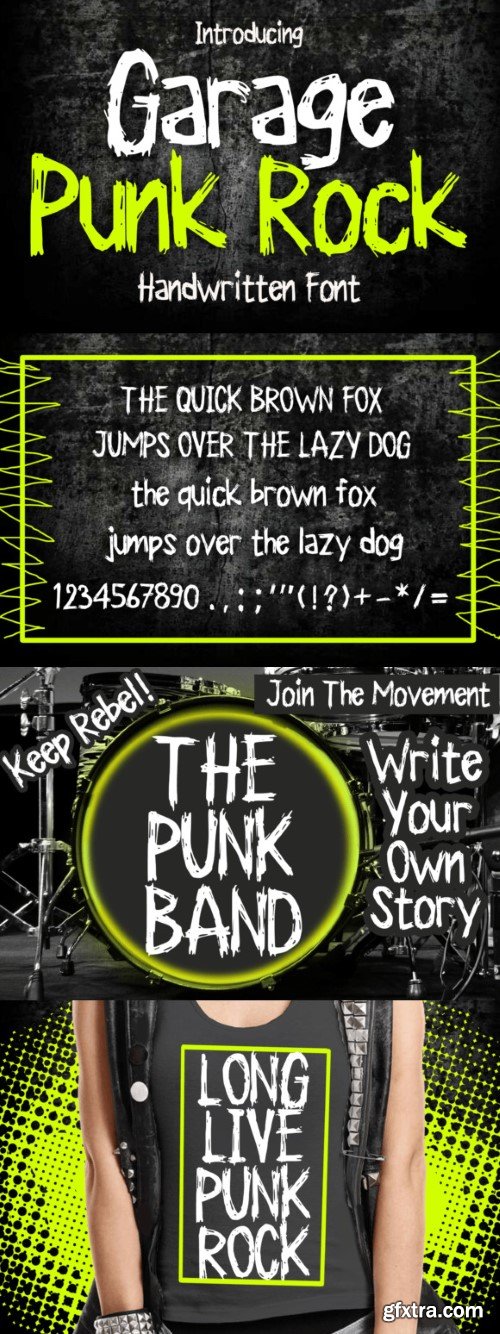
garage punk rock 字体
Garage Punk Rock is a cool grunge and rock band display font. Garage Punk Rock is great for creating cool designs that scream for attention: it’s ideal for movie posters, music posters, single covers, t-shirt designs, stickers, clothing, merchandise, and more. Fall in love with its incredibly cool style, and use it to create lovely designs!